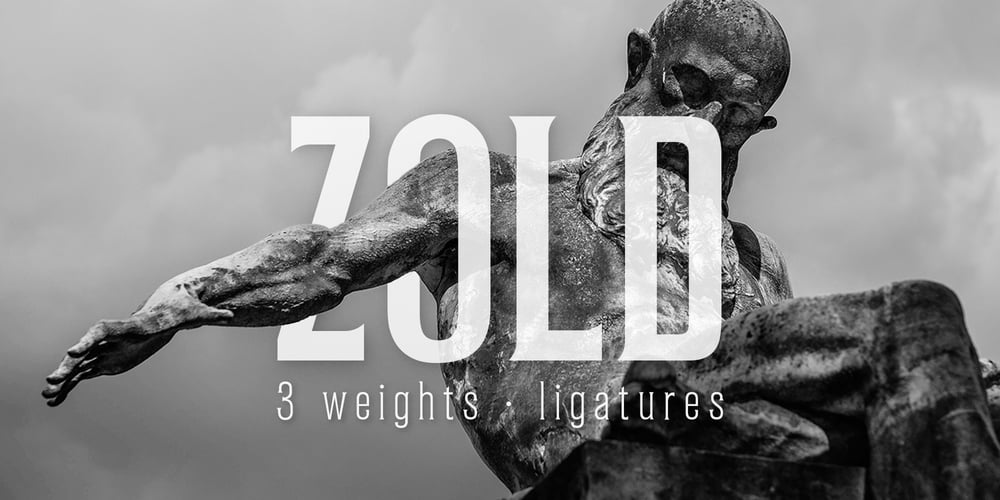
Zold
Zold font
Zold Font Family was designed by Marco Mancia and published by EMME grafica. Zold contains 3 styles and family package options. Zold is the first font designed by EMME Grafica. It’s a simple, statuesque, architectural, eye-catcher, tough yet elegant font, particularly suitable for titling, subtitling, branding and typographic amusements.The solemnity of Zold does not affect the the elegance of the curves of the font, but gives it the right visibility and temper, like that of Zold, the surly character who will be the antagonist of a multimedia project currently under development at EMME Grafica.